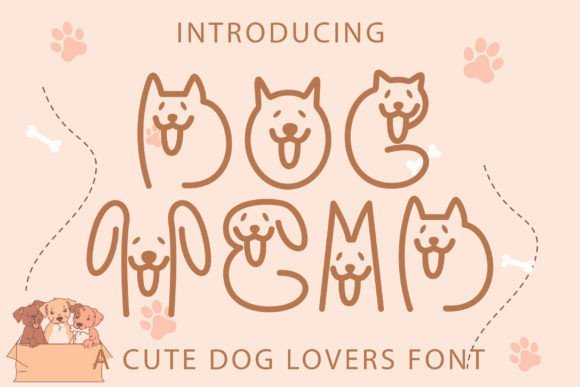
The Pawfect Touch: Unlocking the Magic of Dog Head Font
As a crafter, there’s nothing quite like the thrill of stumbling upon the perfect font to elevate your project. It’s that moment when the words on your design sheet suddenly come alive, and you can’t wait to see them in action. For me, that moment happened when I discovered Dog Head Font – a delightful, dog-themed decorative font that’s as adorable as it is versatile.
With its charming dog cliparts, Dog Head Font is the ultimate go-to font for dog lovers and designers alike. Whether you’re working on a custom birthday card, a pet-themed journal, or a promotional campaign for a dog-related business, this font is sure to bring a smile to your face and a touch of personality to your design.
As a valuable resource for designers, Dog Head Font offers endless possibilities for creative expression. Its cute and playful style makes it perfect for projects that require a lighthearted, whimsical touch – and who doesn’t love dogs, after all?
Dog Head Font Key Features
- Unique Characteristics: Dog Head Font features a distinctive, hand-drawn design with a bold and playful style, making it ideal for use in headings and titles.
- Language Support: Dog Head Font supports a wide range of languages, including Latin, Greek, and Cyrillic alphabets.
- Kerning and Ligatures: The font includes advanced kerning and ligature pairs to ensure smooth and even spacing between characters.
- Font Metrics: Dog Head Font has a x-height of 0.5 and an ascender height of 0.6, making it suitable for use in a variety of applications, from body text to headings.
Designer Review: Dog Head Font
Overall, I’d say the Dog Head Font is a unique and quirky addition to any project. Here’s what I like:
- ✨ The font’s playfulness and creativity shine through in its bold, hand-drawn style, making it perfect for projects that need a bit of personality.
- ✨ The font is highly customizable, allowing designers to tweak the size, color, and spacing to fit their specific needs.
- ✨ The font is well-suited for use in headings, titles, and other prominent text elements where a bold, attention-grabbing style is desired.
- ⚠️ The font’s hand-drawn style may not be suitable for projects that require a more formal or professional tone.
- ⚠️ Some of the characters may not be as polished or refined as they could be, which may be a concern for designers who prioritize precision and accuracy.
- ⚠️ The font may not be as readable in smaller text sizes, which could impact its usability in certain contexts.
Overall, I think the Dog Head Font is a fun and creative addition to any project, but it’s not for everyone. With some careful consideration and planning, it can be a great choice for designers looking to add some personality to their work.
Dog Head Font is ideal for:
- Playful and creative branding
- Whimsical and humorous designs
- Children’s books and educational materials